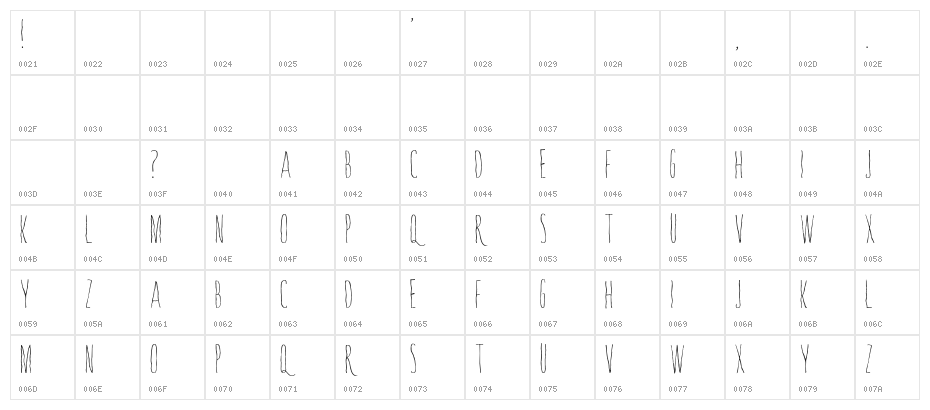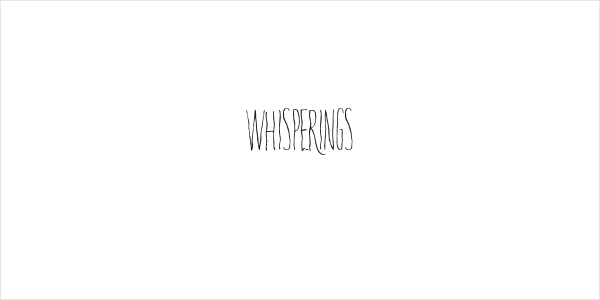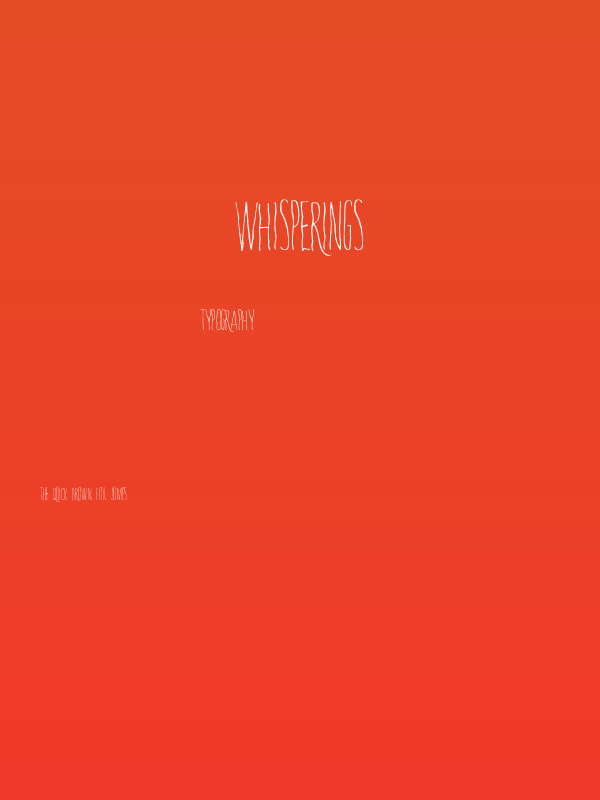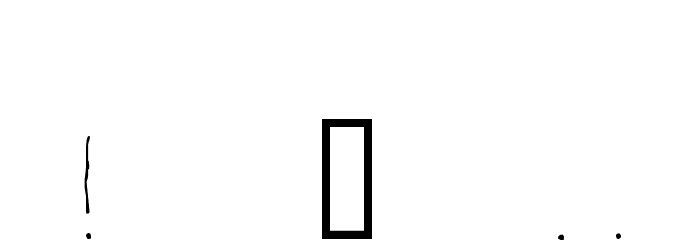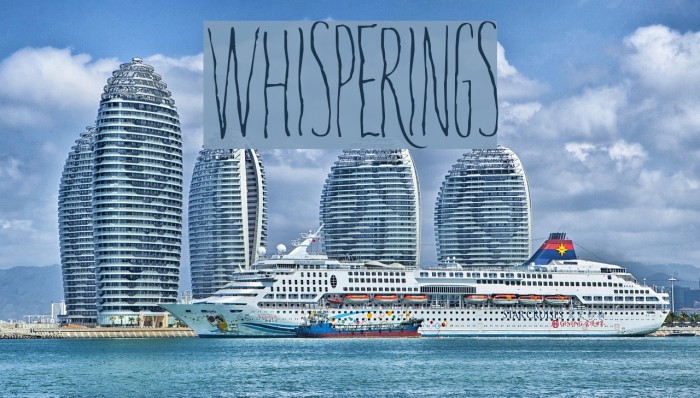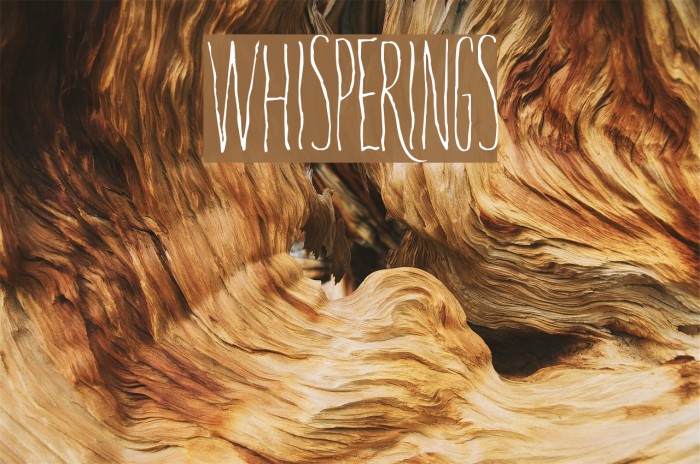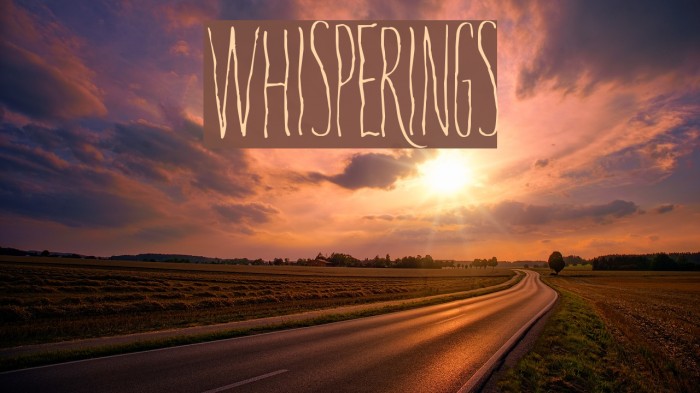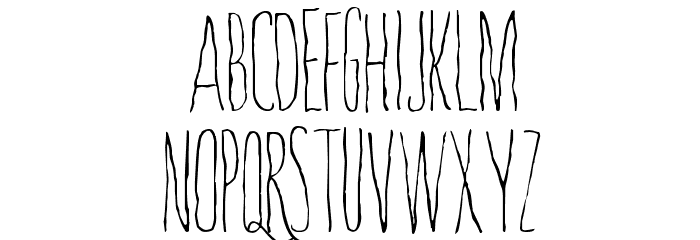
Whisperings Font
Whisperings Description
This font features a unique, elongated design with a hand-drawn aesthetic. The letters are tall and narrow, with irregular strokes that give it a whimsical and artistic feel. The uppercase and lowercase letters maintain a consistent style, with a slightly uneven baseline that adds to its charm. The numerals and special characters follow the same artistic style, making it a cohesive typeface. Its distinctive appearance makes it suitable for creative projects that require a touch of individuality and flair.
WHISPERINGS UPPERCASE
WHISPERINGS LOWERCASE
WHISPERINGS OTHER CHARS
| Use Case | Logos, Posters, Invitations |
| Proposed Projects | Ideal for creative projects such as posters, invitations, and artistic branding that require a unique and personal touch. |